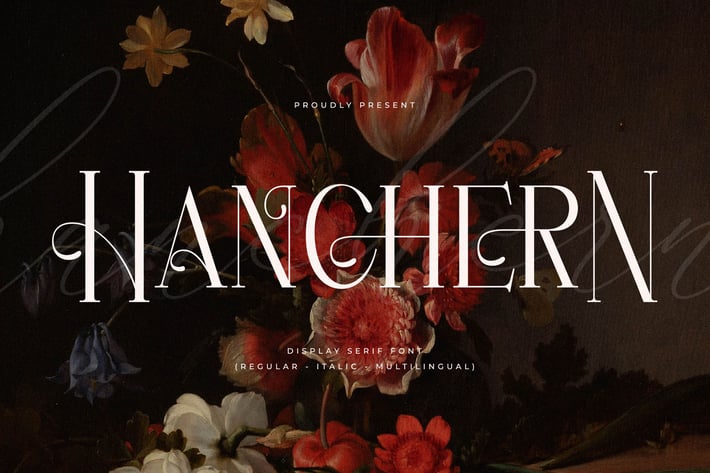
Hanchern Display Serif Font
Hanchern is a refined display serif font inspired by classic elegance and dramatic editorial aesthetics. With tall proportions, sharp serifs, and graceful contrast, Hanchern delivers a luxurious, poetic feel that instantly elevates headlines and visual storytelling.
Elegant display serif with classic editorial character
Includes Regular & Italic styles
High-contrast letterforms for striking headlines
Sophisticated and timeless visual tone
Luxury branding & identity
Editorial layouts and magazine covers
Fashion, beauty, and art direction
Posters, book covers, and campaigns
Premium logos and headline typography
An expressive serif that blends classic beauty with modern editorial drama.*